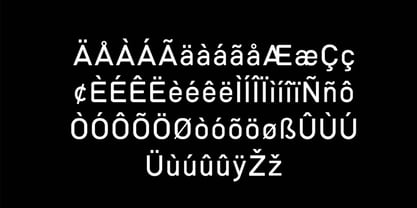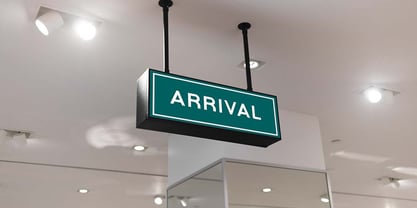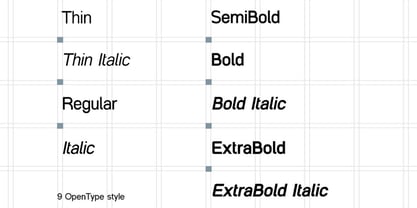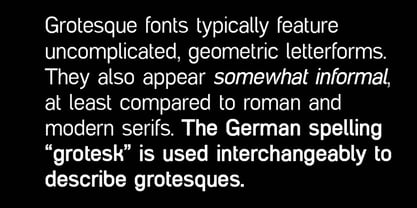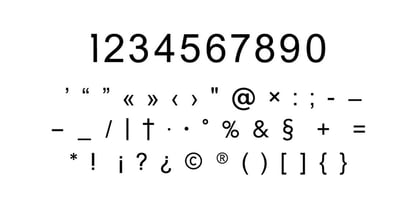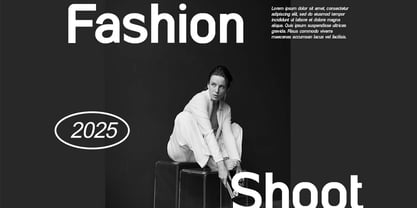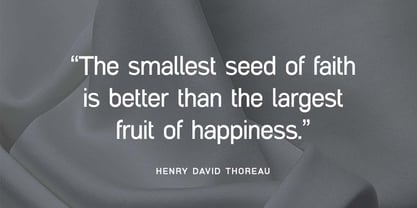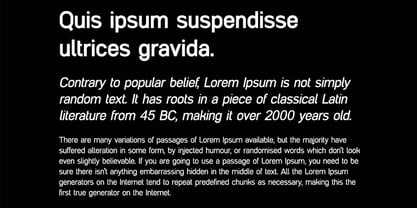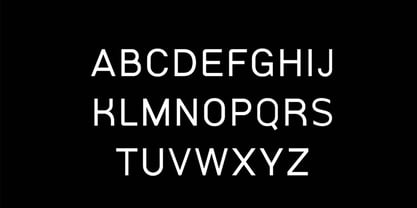
Masonries Sans
by UICreative
The Masonries Sans Font Family was designed by Hero and published by UICreative. Masonries Sans contains 9 styles and family package options. More about this family
Introducing our new product the name is Masonries Sans Modern Sans Serif Font. Masonries Sans Modern Sans Serif Font that feels beautiful classy, elegant, and modern. This font is perfectly suited for a wide variety of projects, such as signature, stationery, logo, wedding, typography quotes, magazine or book covers, website headers, clothing, branding, packaging design, and more. Also, fashion-related branding or editorial design displays both masculine and feminine qualities.
Designers: Hero
Foundry: UICreative